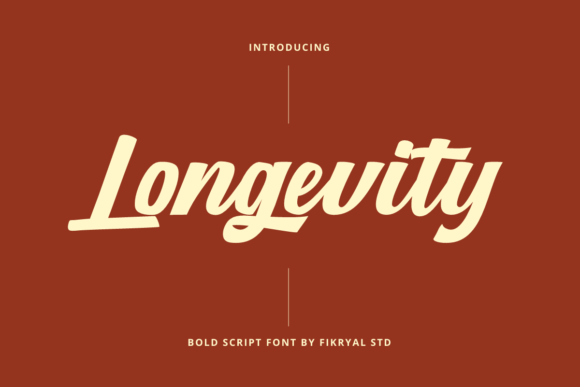
Attention all designers and creatives, are you searching for the perfect font to add a touch of elegance to your vintage logos? Look no further than the stunning Longevity Font by Fikryal Studio. This bold script font is a true masterpiece of typography that exudes sophistication and class.
Crafted with meticulous attention to detail, the Longevity Font features an exquisite hand-lettered script style that will add a touch of luxury to any design project. Its bold strokes and delicate flourishes make it the perfect choice for creating vintage logos that are sure to stand out.
But what really sets the Longevity Font apart is its versatility. Whether you're creating logos, posters, invitations, or anything in between, this font will elevate your designs and bring them to the next level.